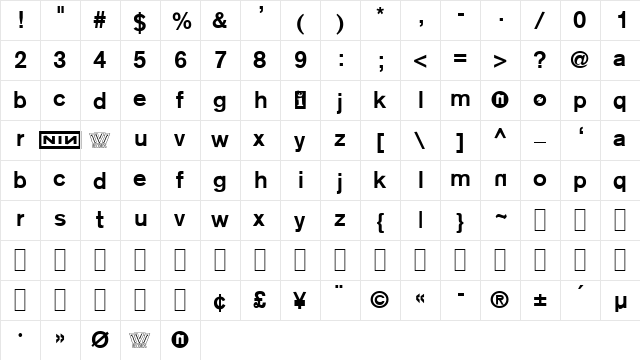
N Regular
N takes a measured approach to typography — its balanced proportions and neutral character make it a reliable workhorse for both digital and print work.